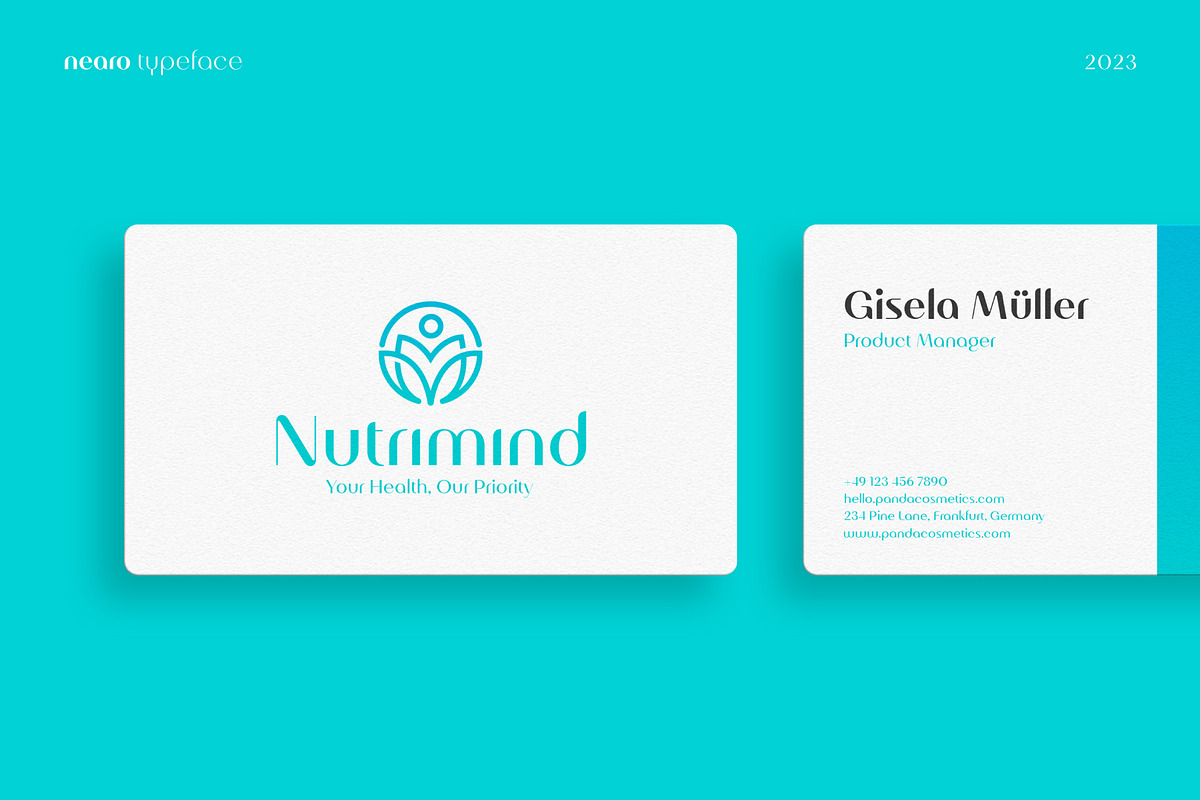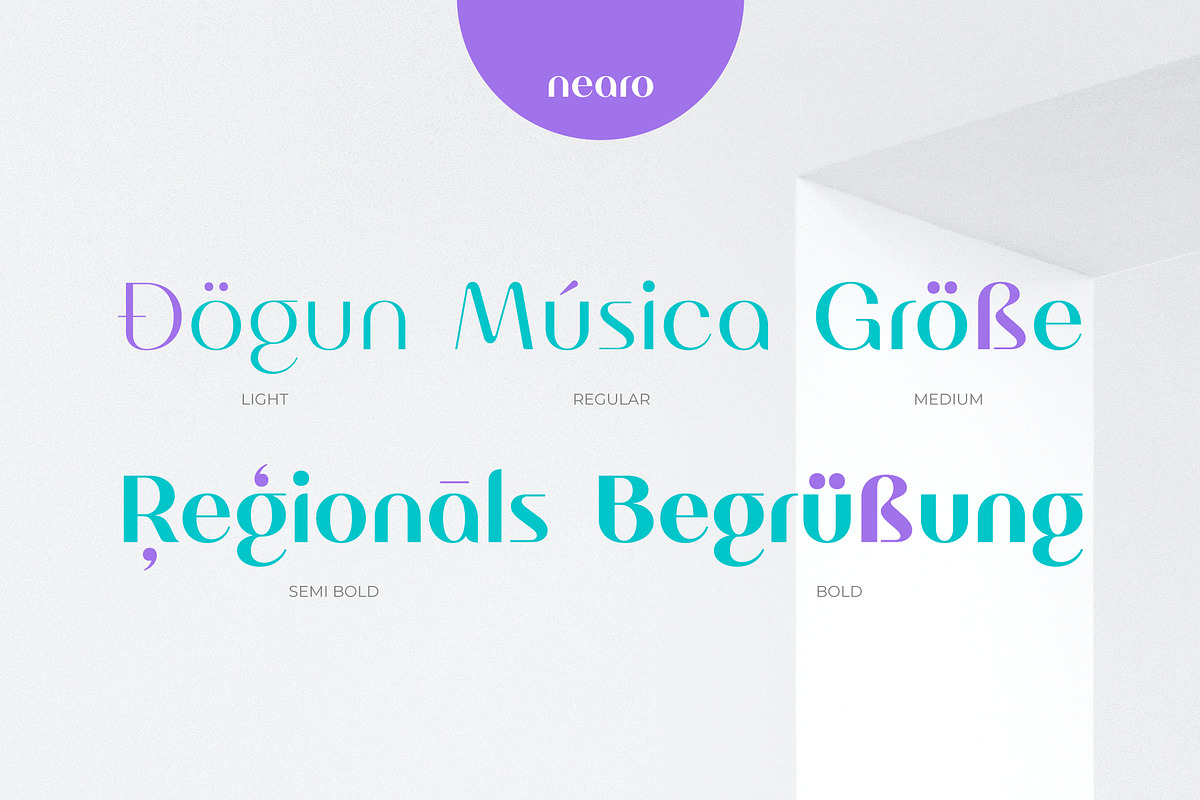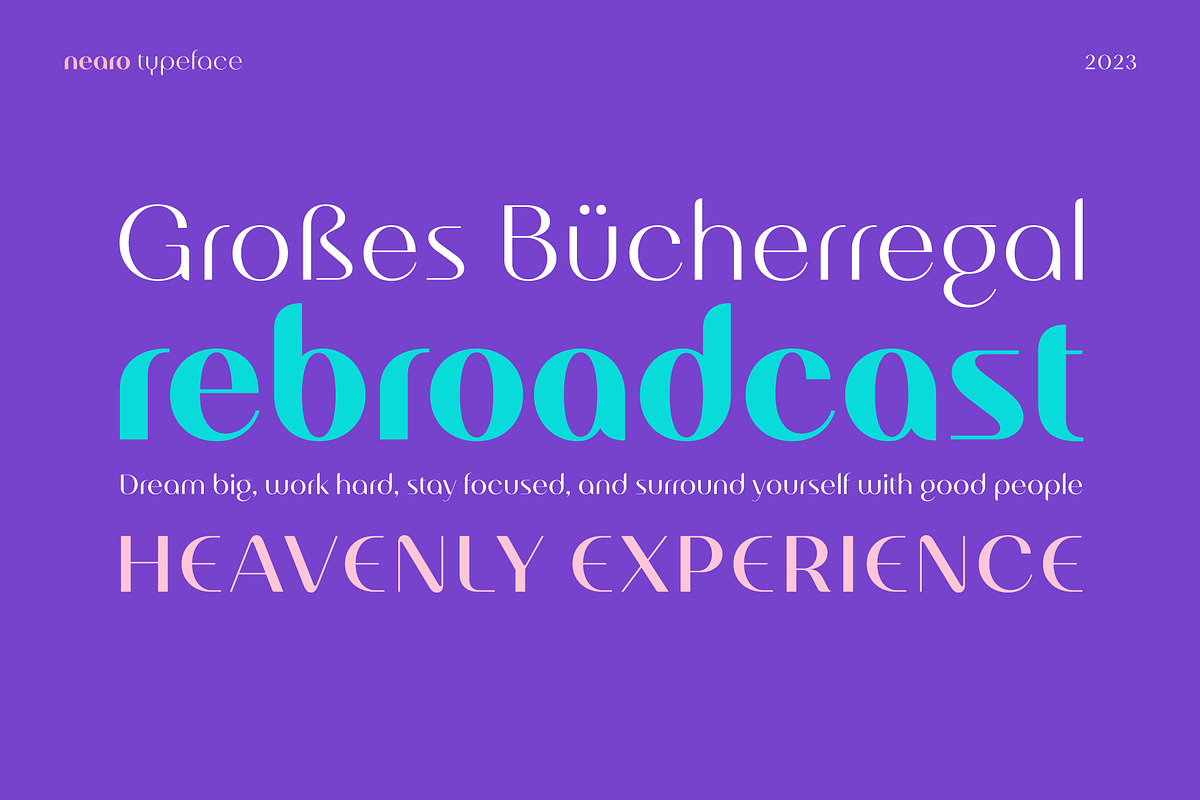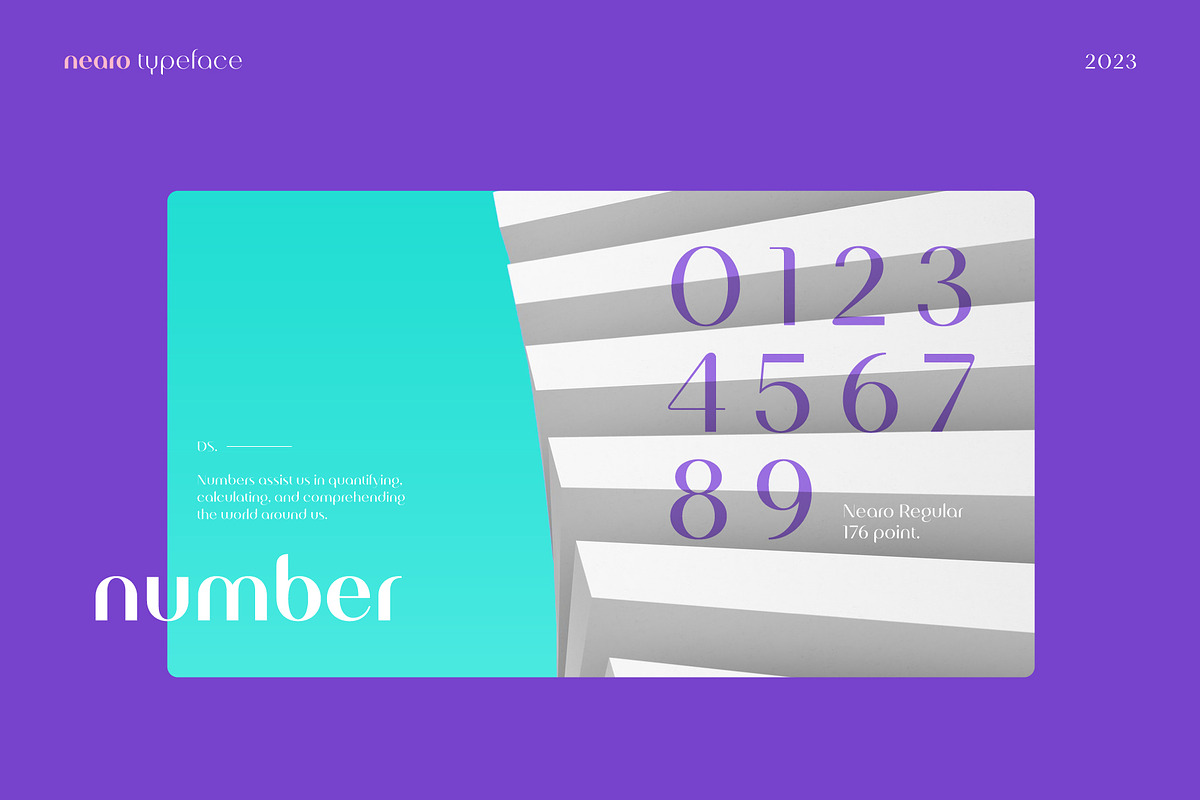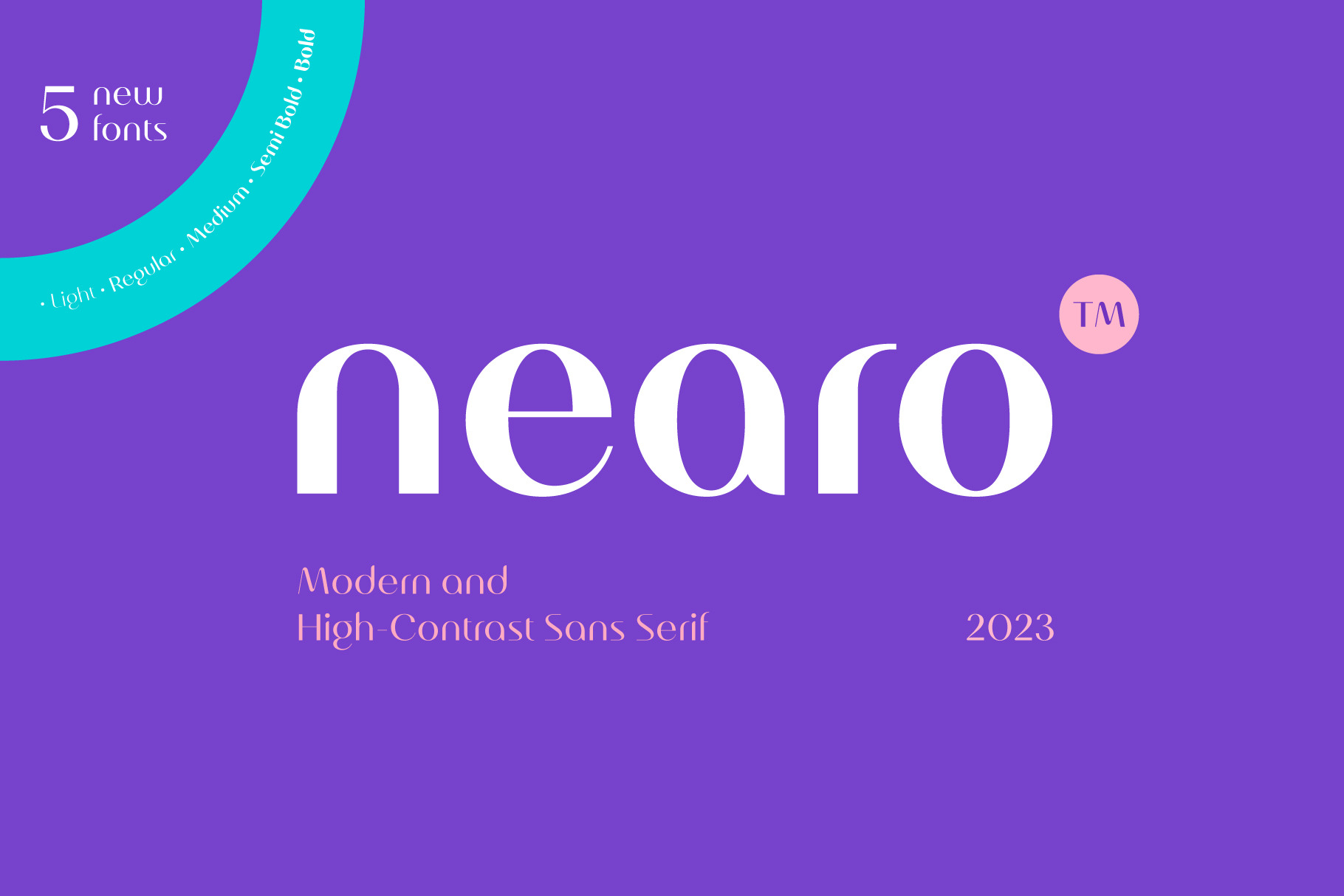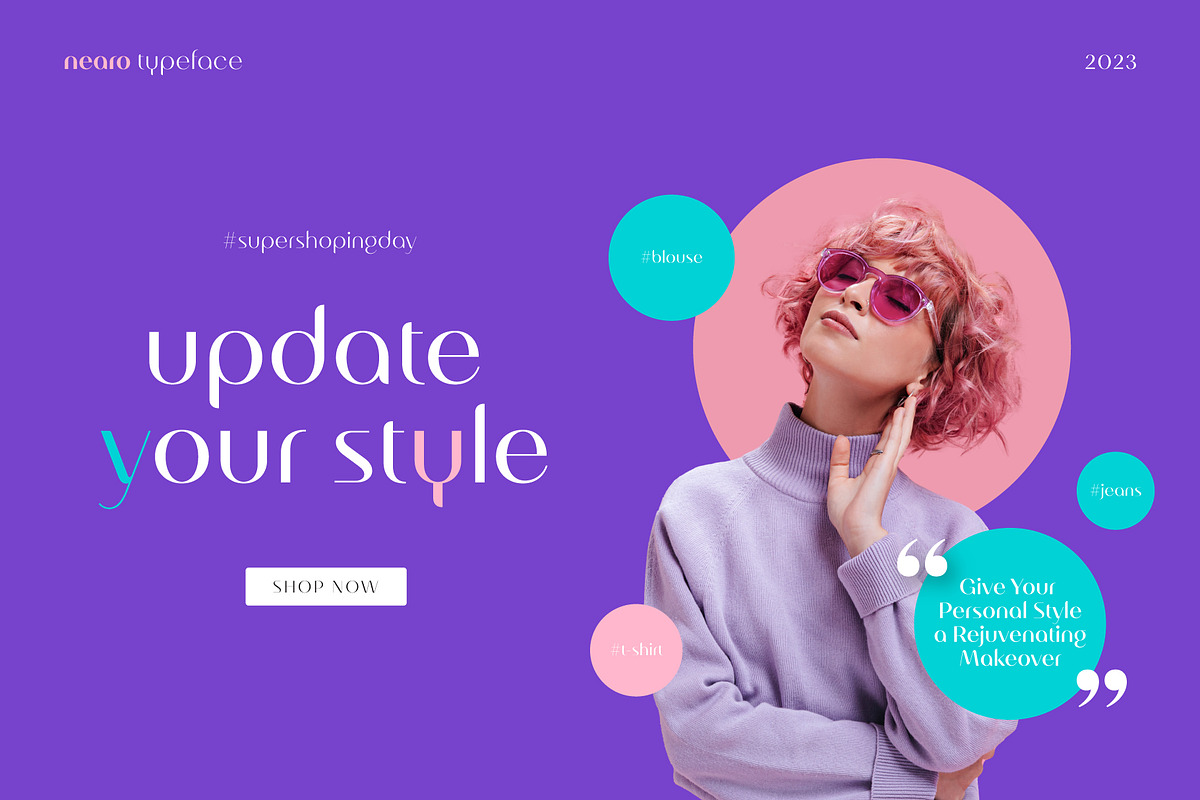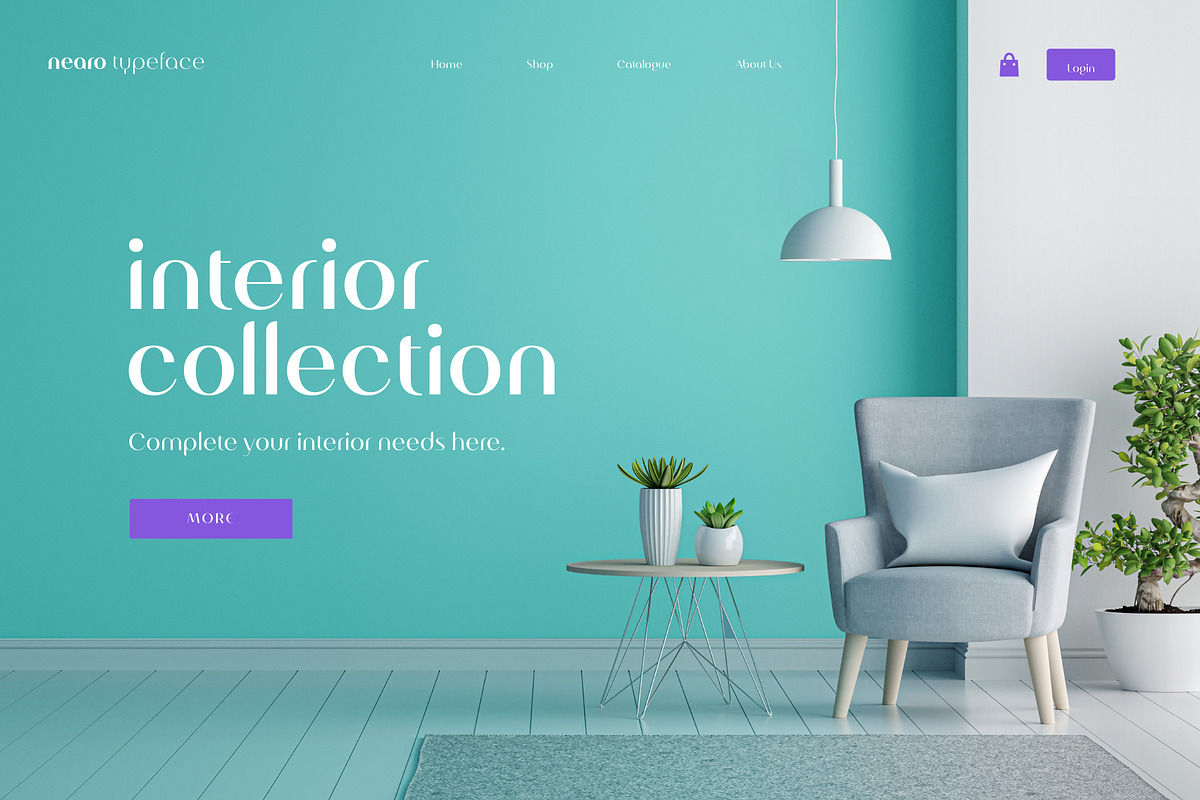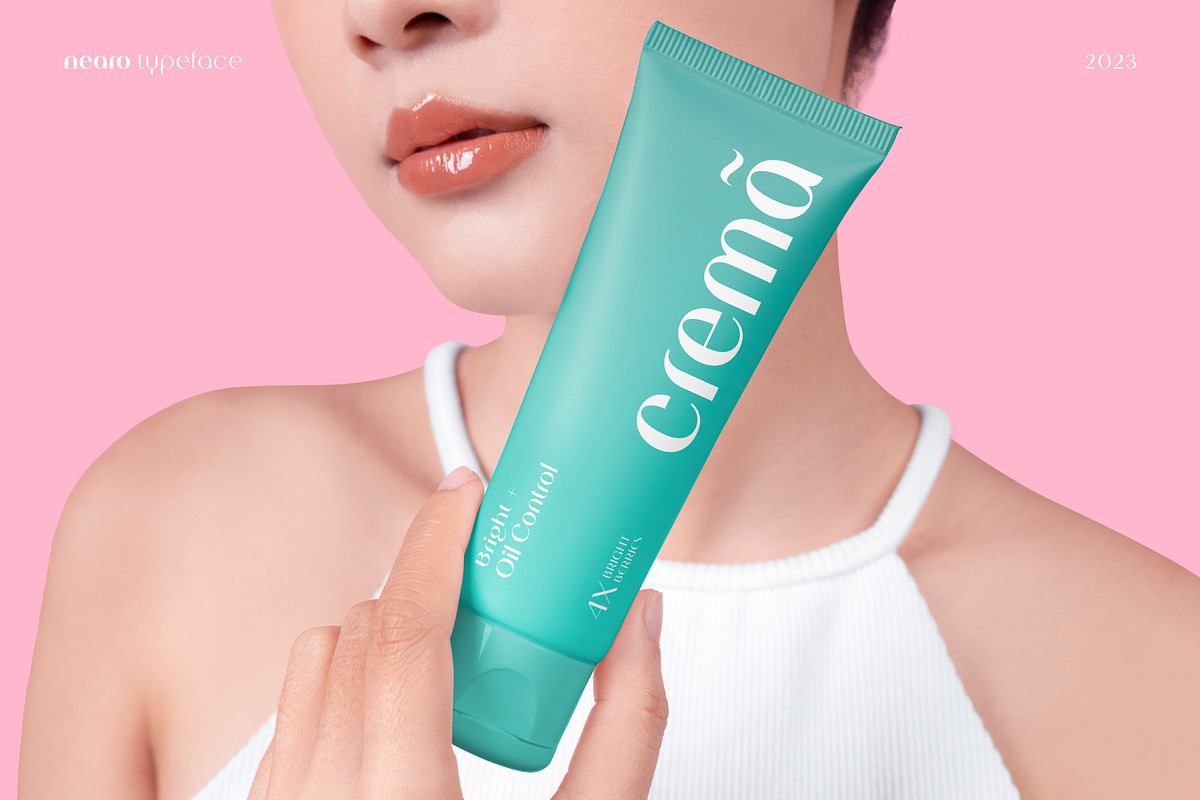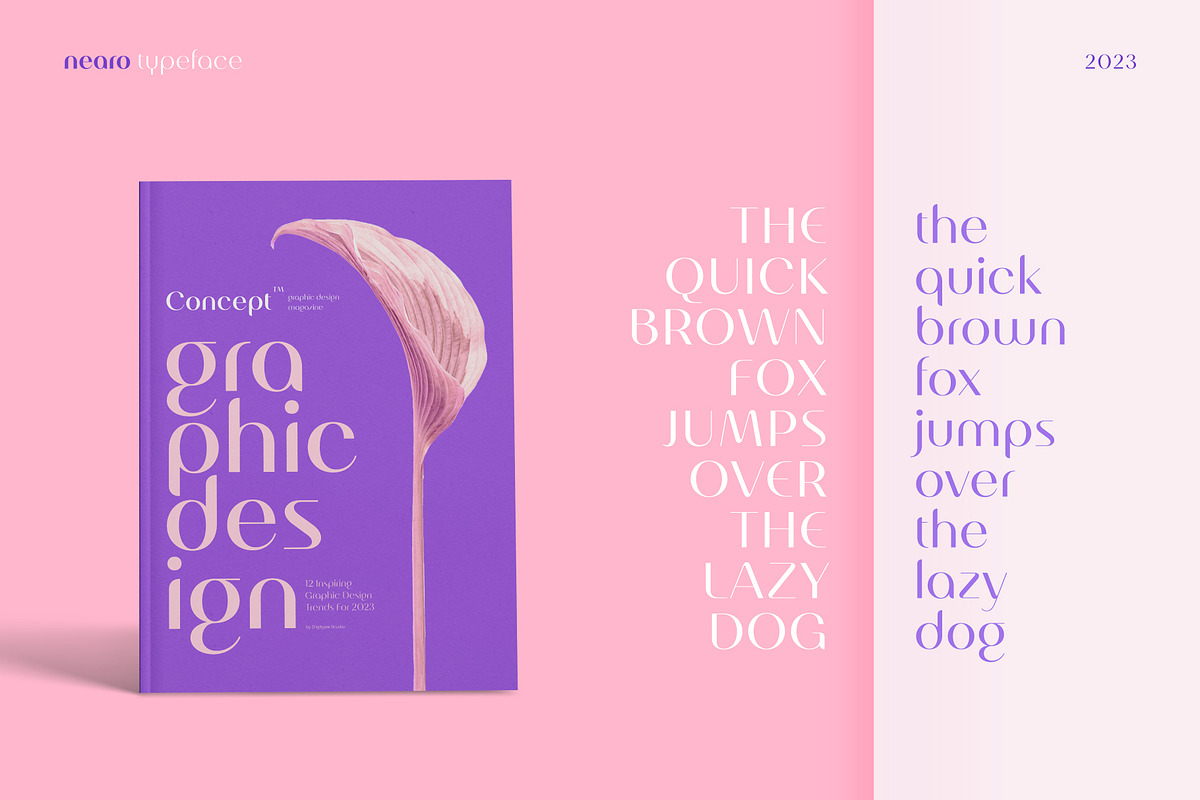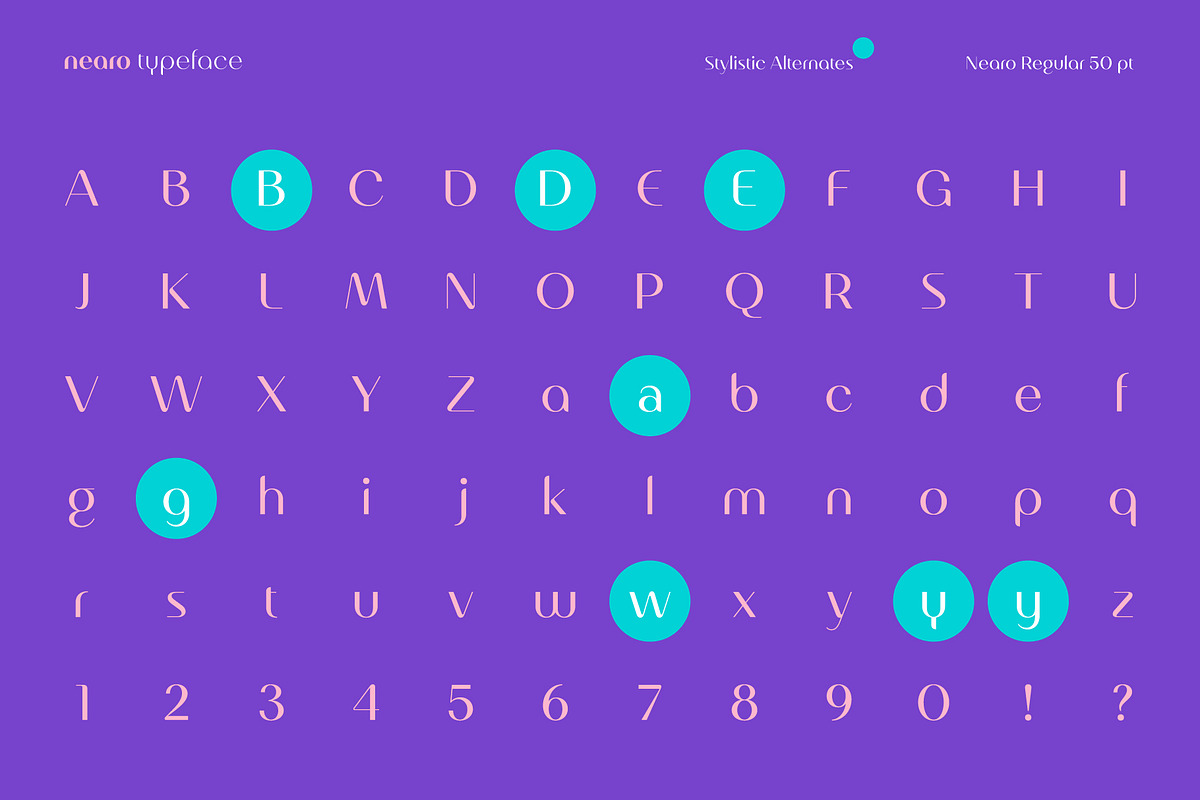
Nearo Font Family
Nearo presents five font styles that embody a modern and high-contrast aesthetic, crafting a distinctive and engaging impression. Nearo is exceptionally well-suited for clean and minimalist designs and can be seamlessly applied to various types of formal projects, including logos, magazines, books, packaging, fashion, cosmetics, invitations, novels, labels, greeting cards/wedding cards, and various other advertising purposes.